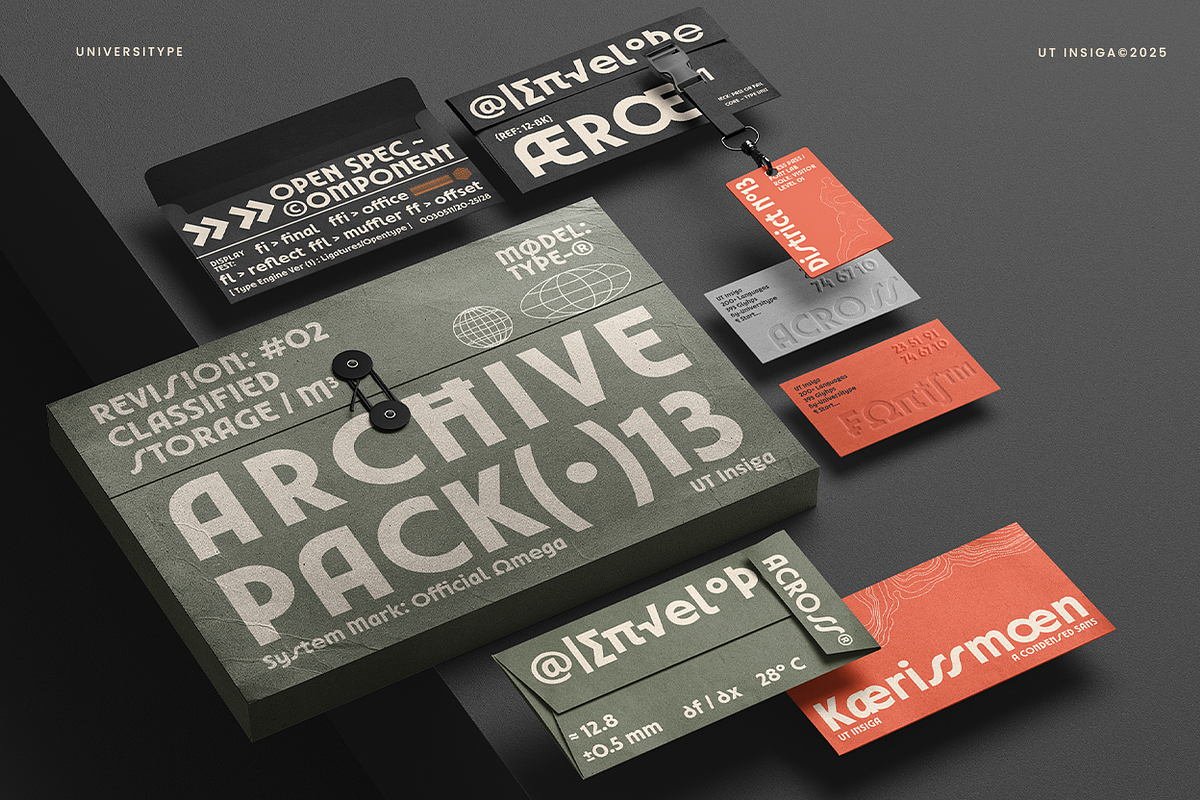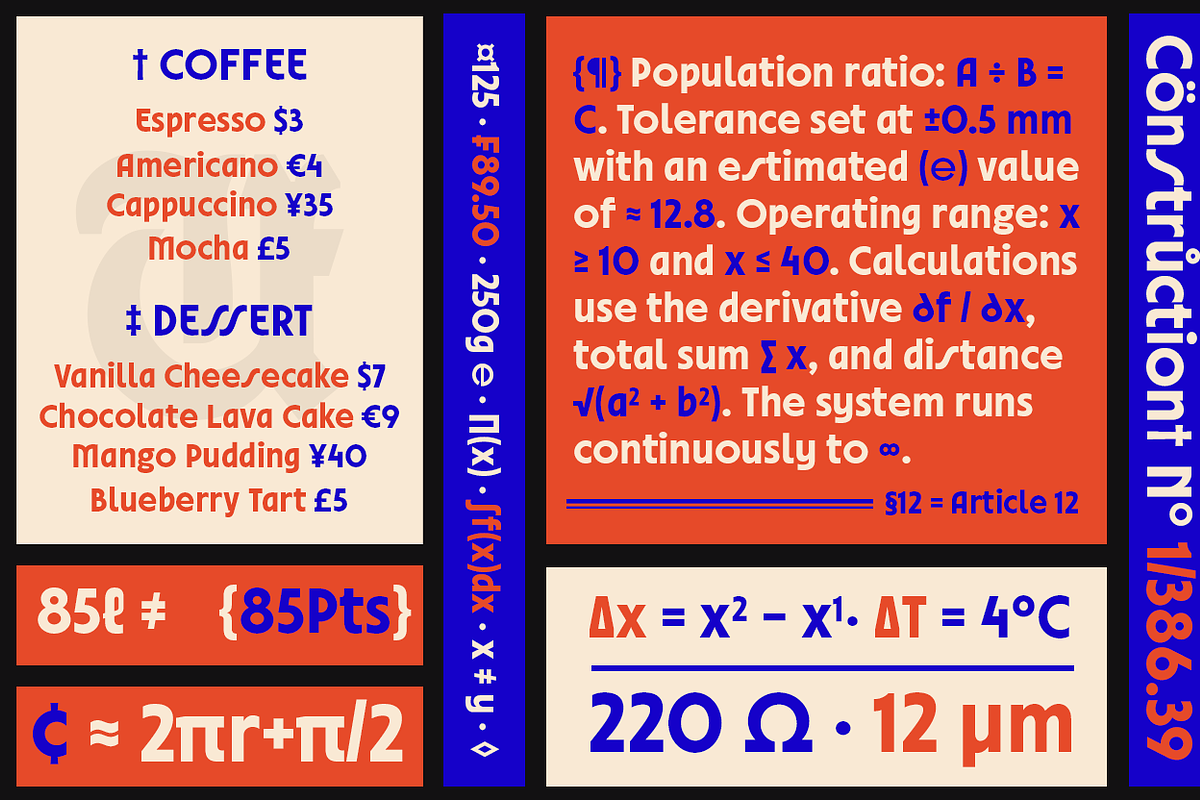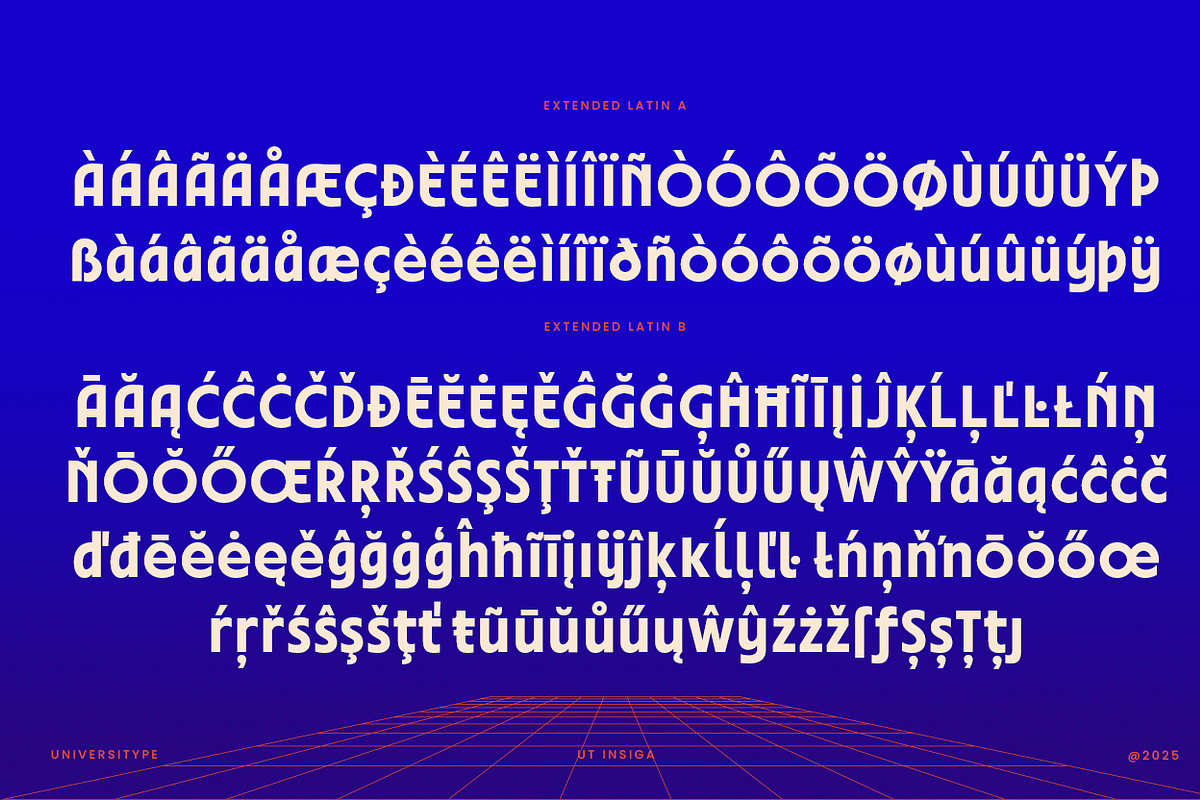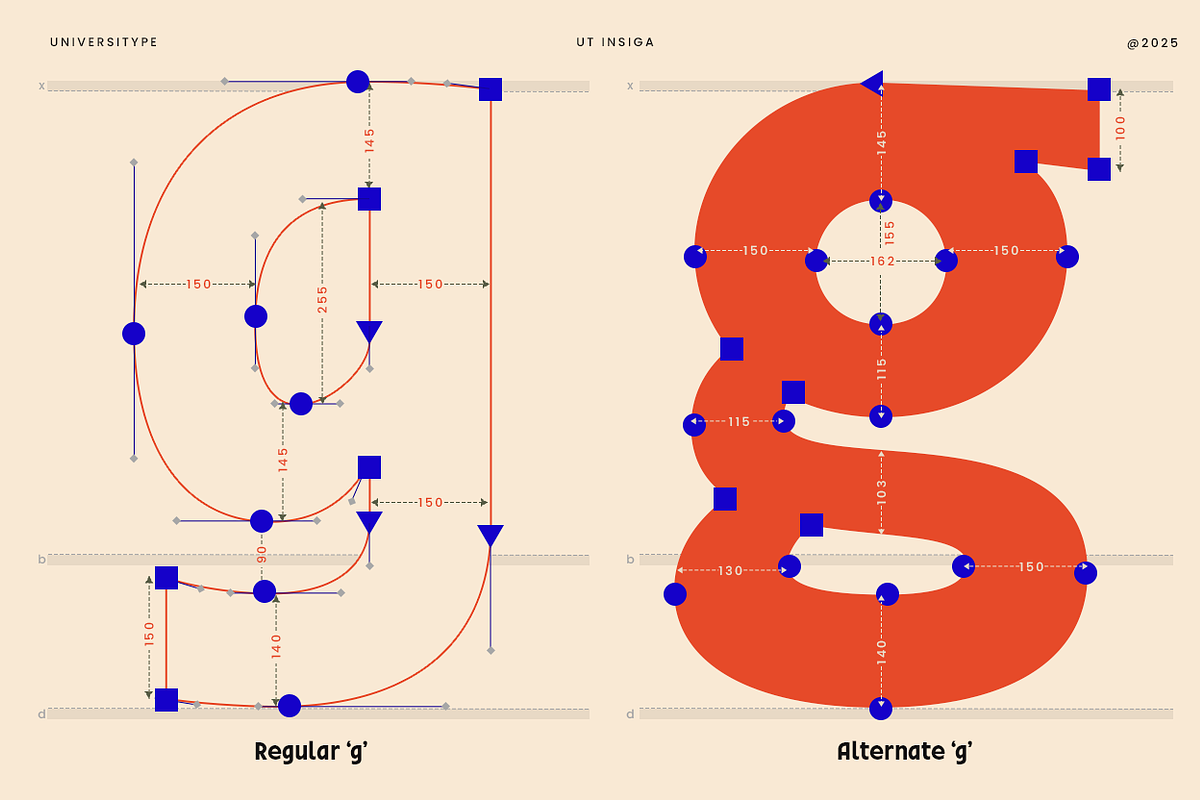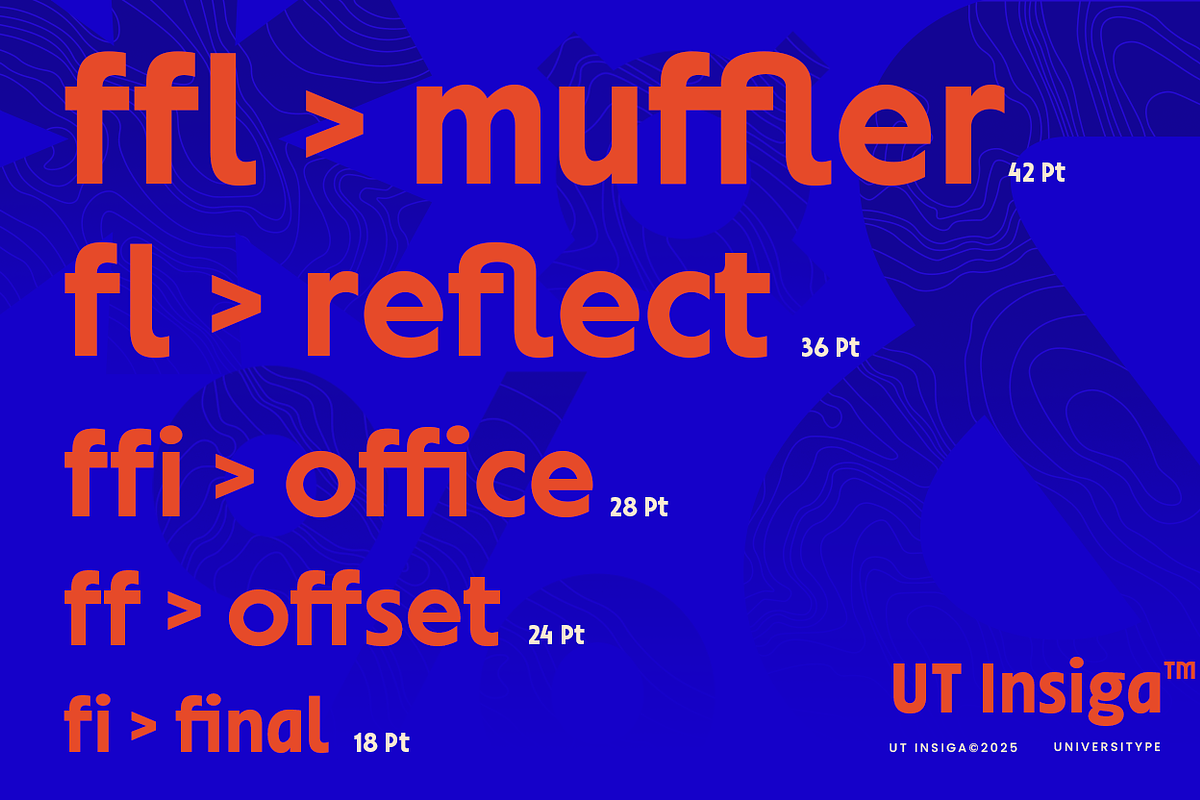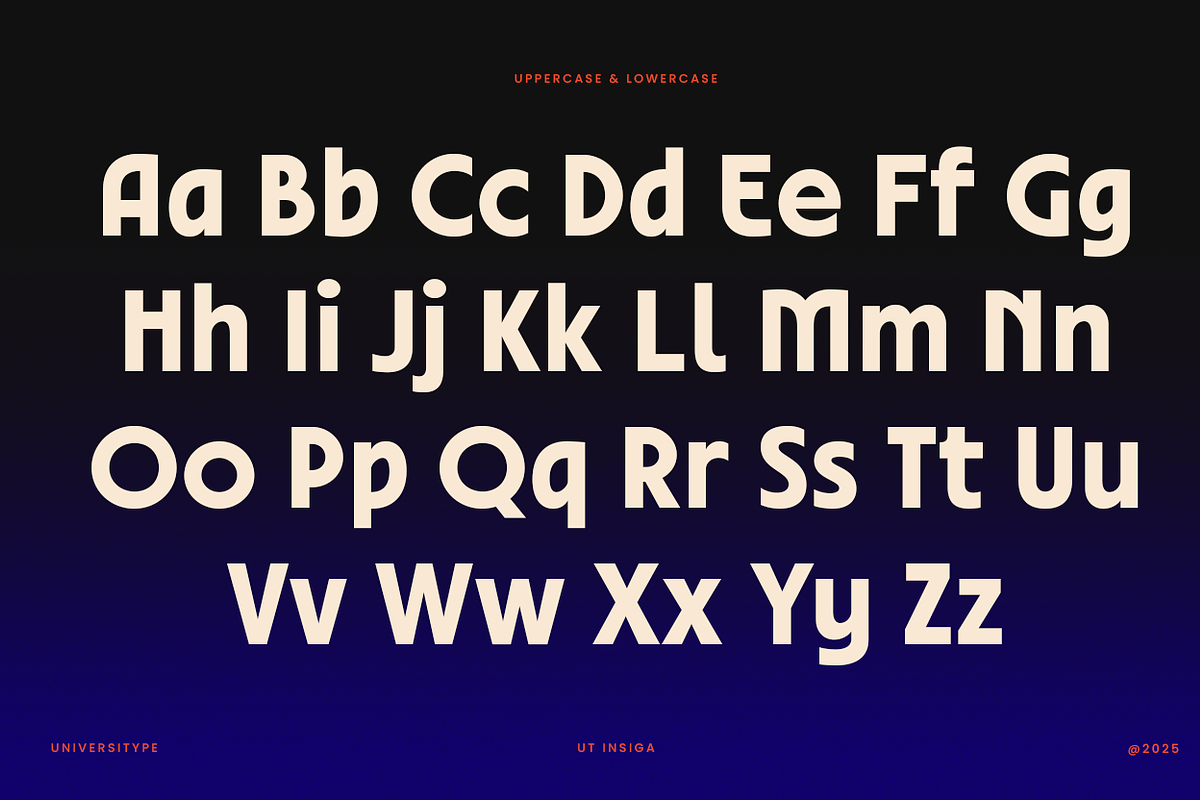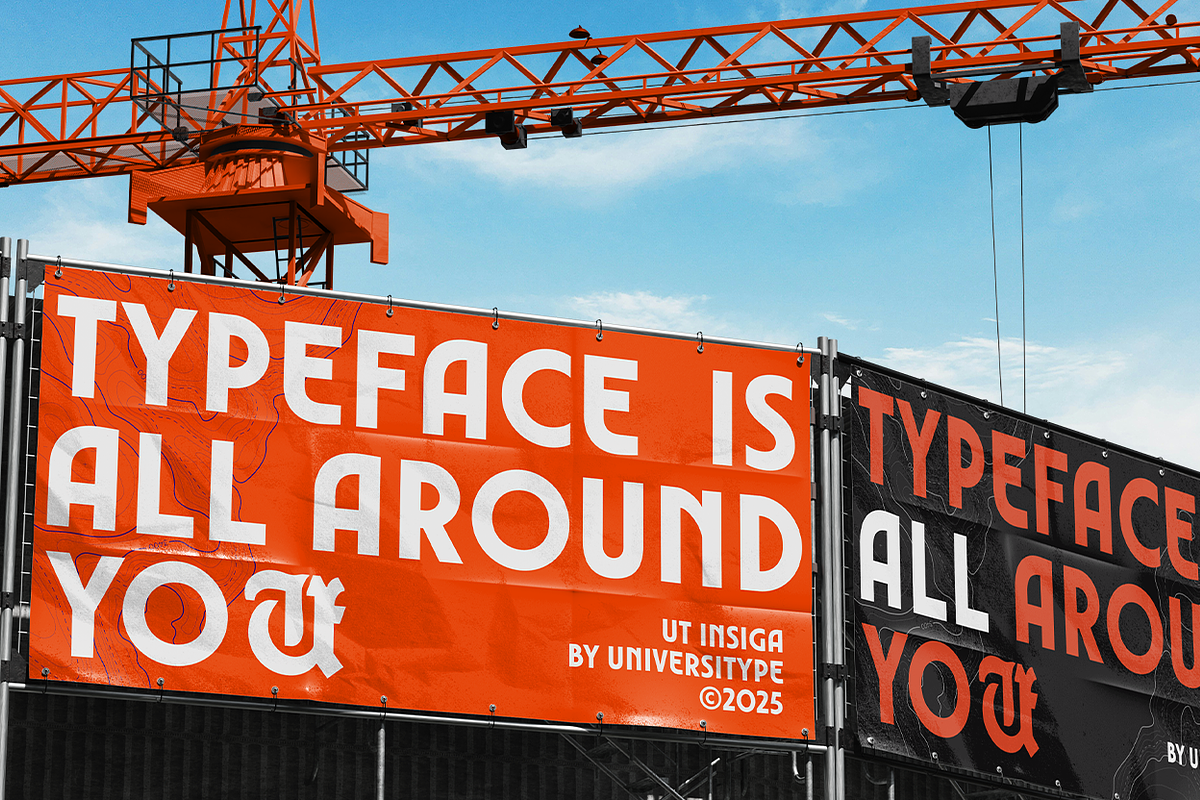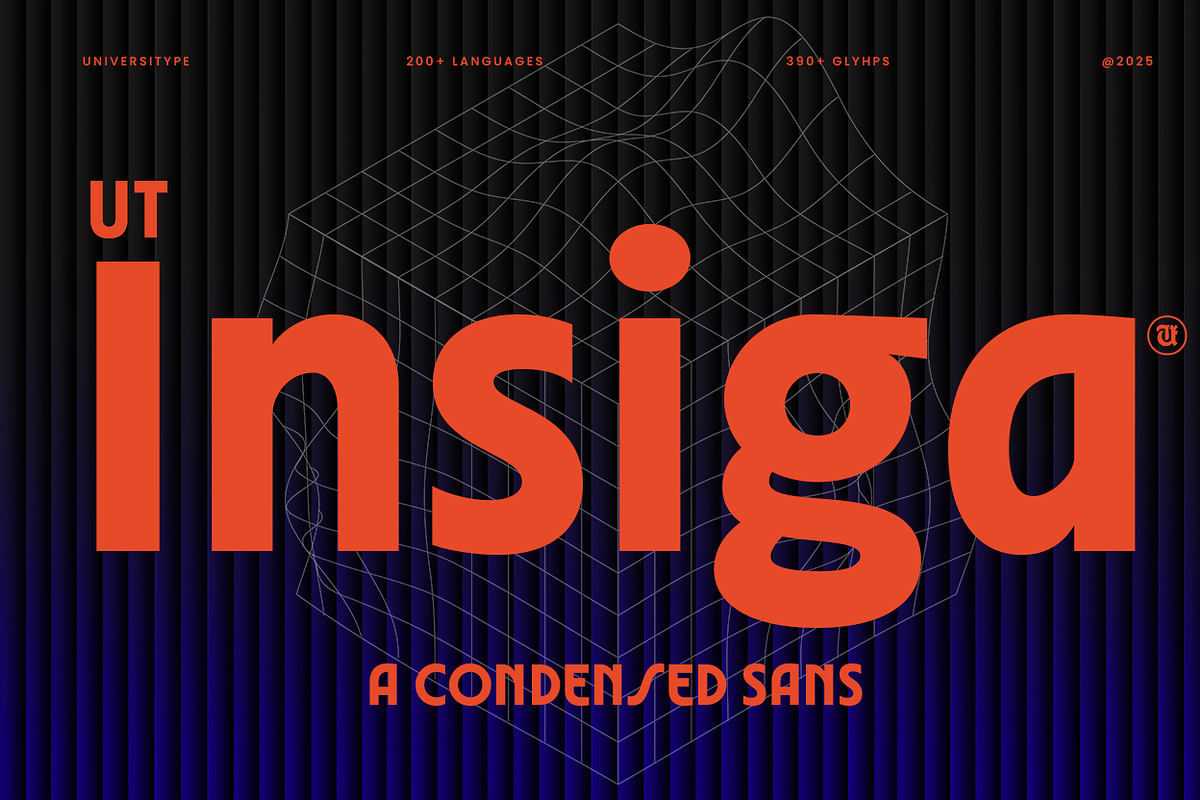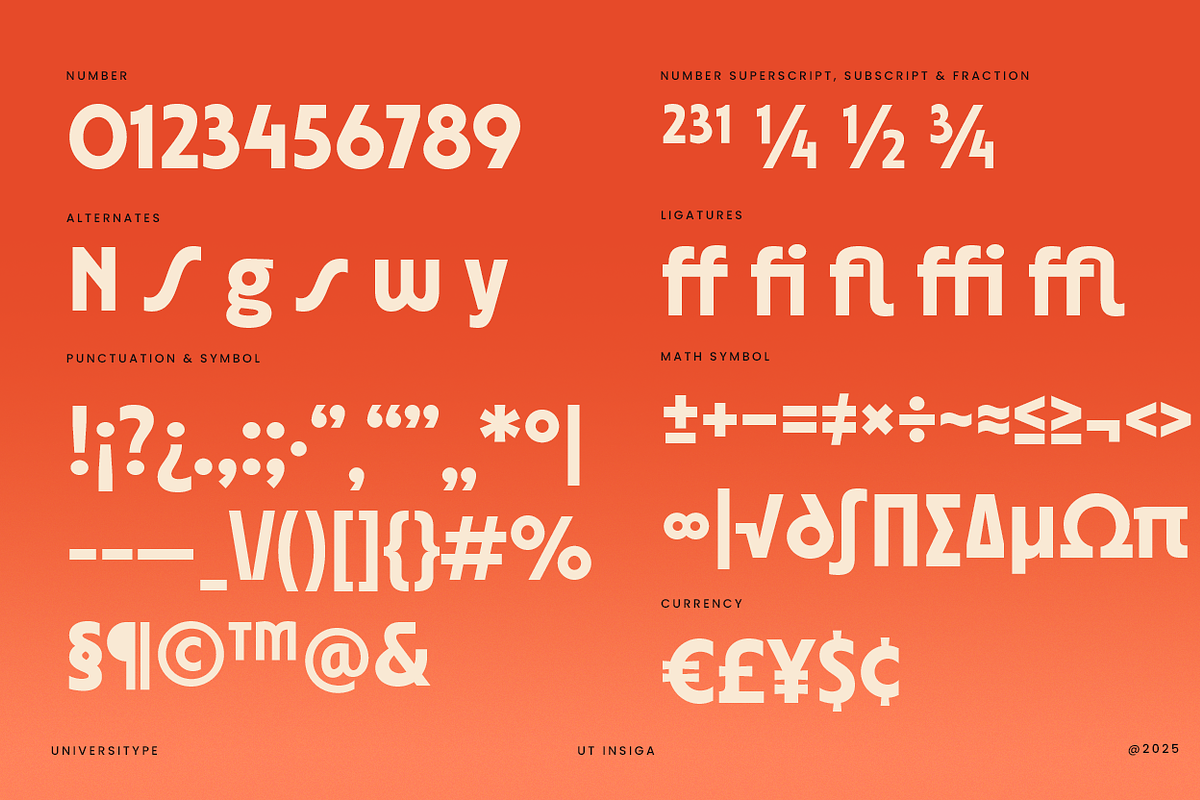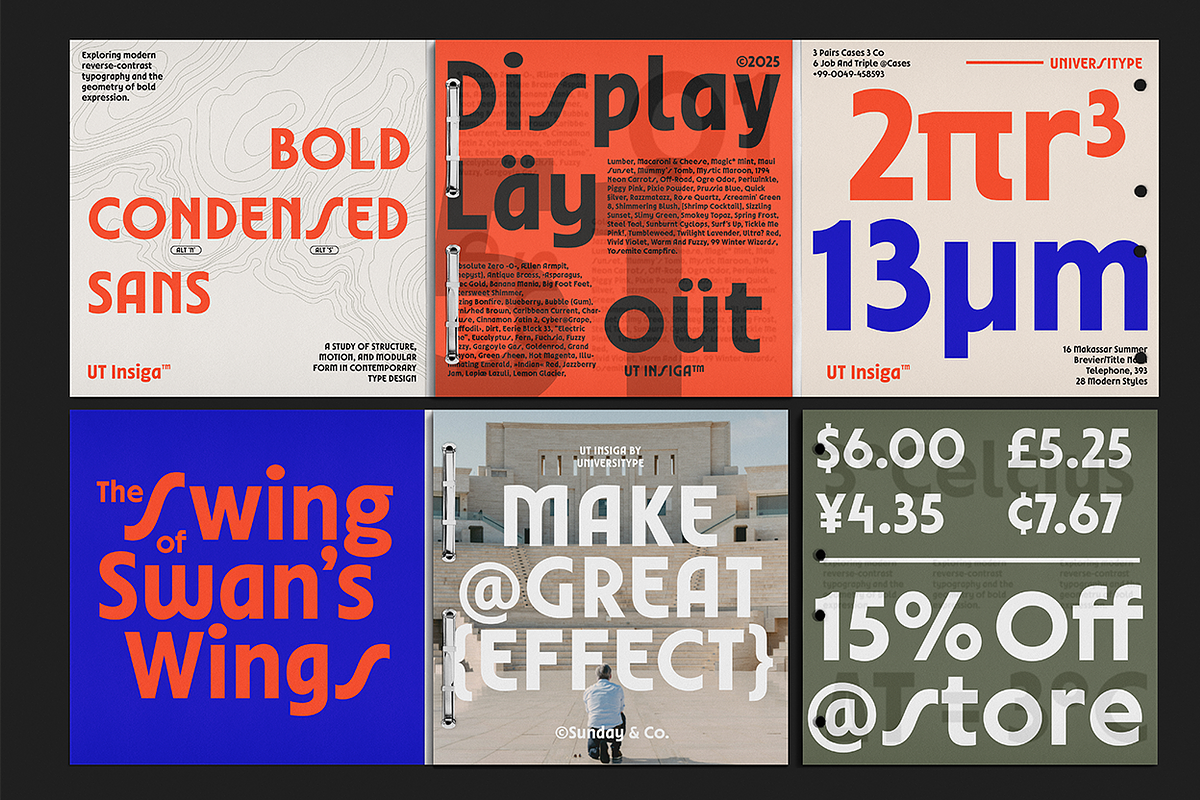
UT Insiga - A Condensed Sans
UT Insiga — A Condensed Sans Typeface
UT Insiga is a modern condensed sans designed for clarity, efficiency, and strong visual presence. Its compact proportions make it ideal for space-conscious layouts, while smooth curves and balanced strokes keep the tone approachable and contemporary.
This typeface delivers a confident look without feeling rigid. It works smoothly across digital and print projects, making it a reliable choice for headlines, branding, and interface design.
Best For
- Brand identities
- Editorial headlines
- Websites and landing pages
- UI / UX design
- Posters and promotional graphics
- Tech brands and creative studios
- Condensed sans style with strong vertical rhythm
- Clean, modern letterforms with soft curves
- Carefully designed alternates for flexible expression
- Consistent readability across sizes
- Optimized for print and digital use
OpenType Features
- Stylistic alternates
- Contextual alternates
- Numerals and full punctuation
UT Insiga fits naturally into modern design systems that value structure, clarity, and subtle personality—without unnecessary distractions.